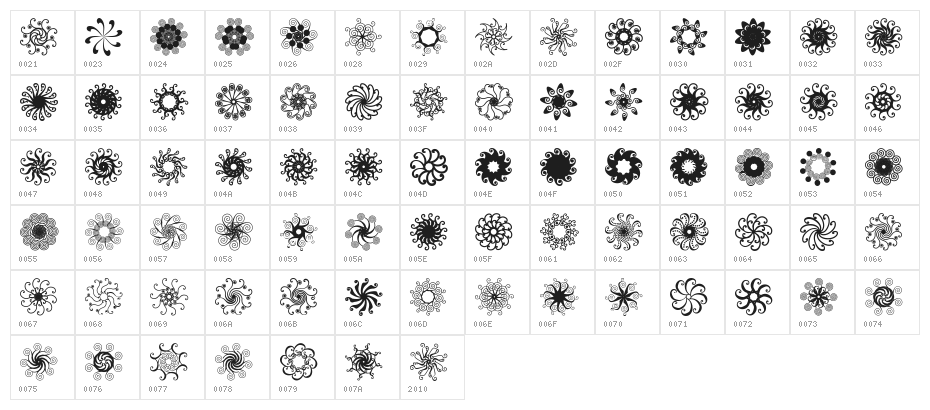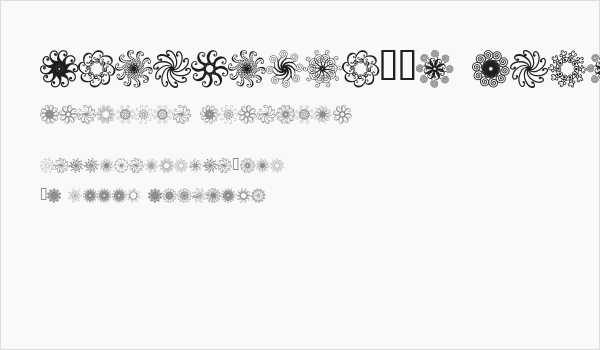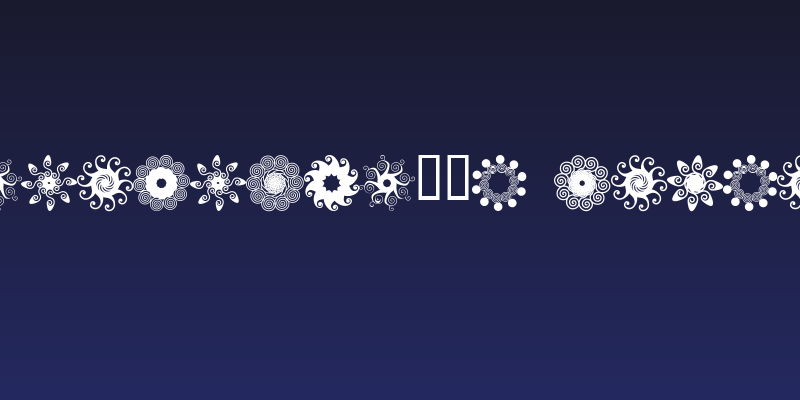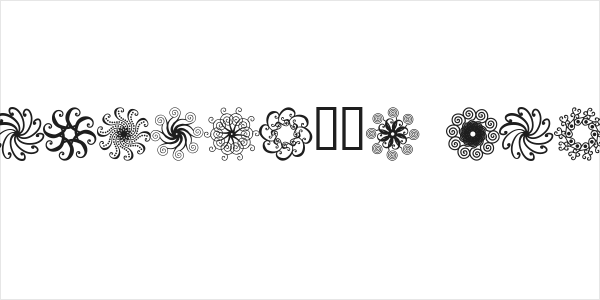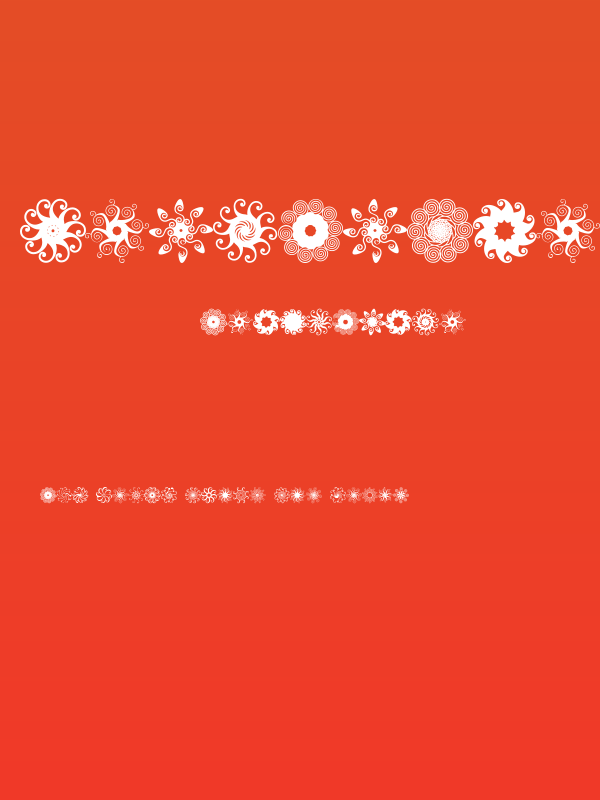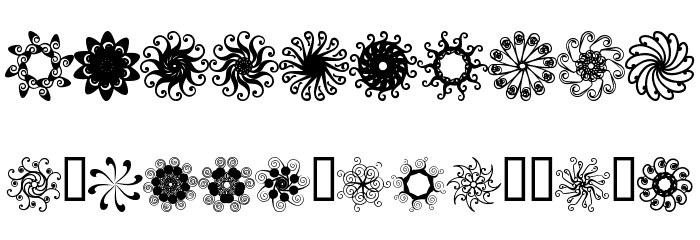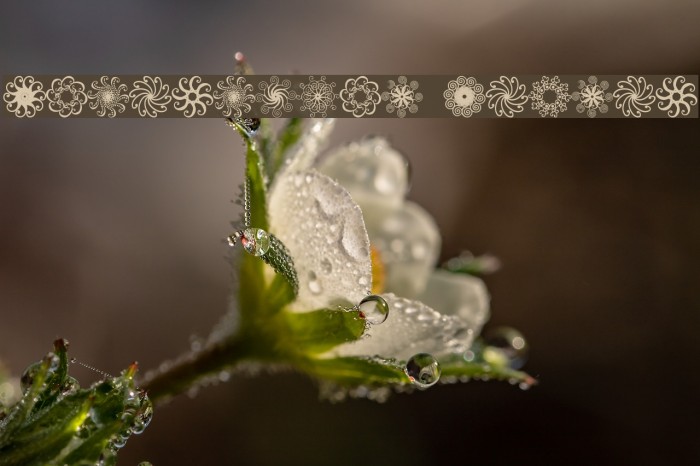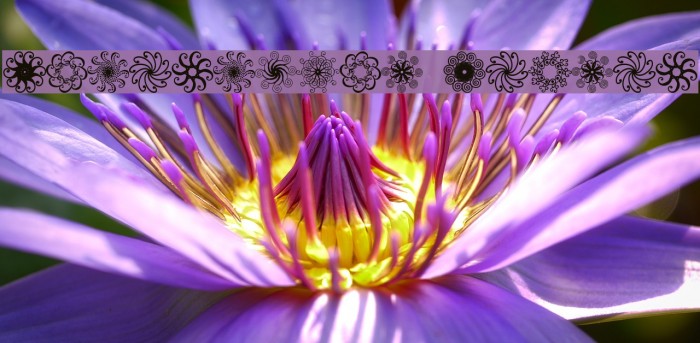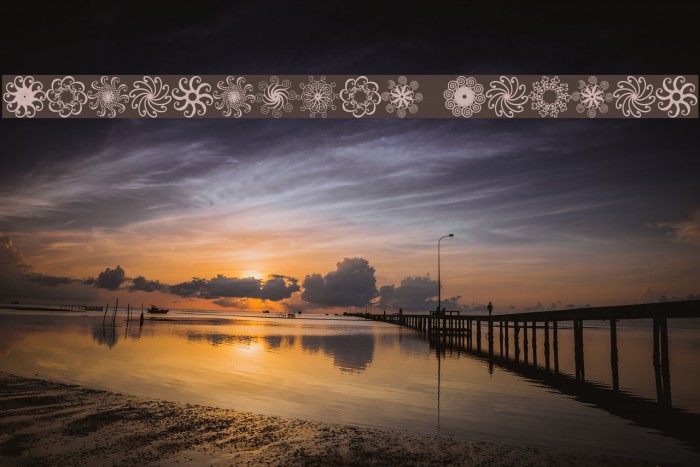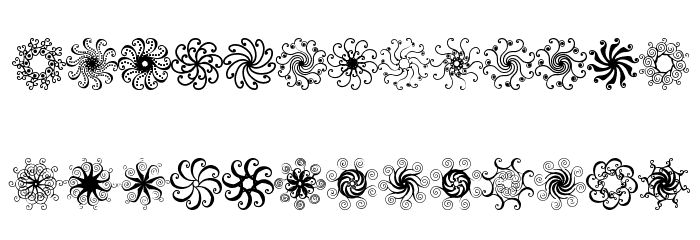
Cyberbuny's Teaser Font
Cyberbuny's Teaser Description
A highly decorative and ornamental dingbat set featuring intricate, swirling, and floral-inspired motifs with a playful and whimsical aesthetic. The glyphs are complex, with varying stroke weights and a mix of filled and outlined elements, creating a dynamic and eye-catching appearance.
| Overall Style | Decorative, Whimsical, Ornamental |
| Use Case | Decorative elements, Borders, Embellishments |
| Proposed Projects | Borders, invitations, decorative dividers, scrapbooking, digital art, posters, and creative branding. |